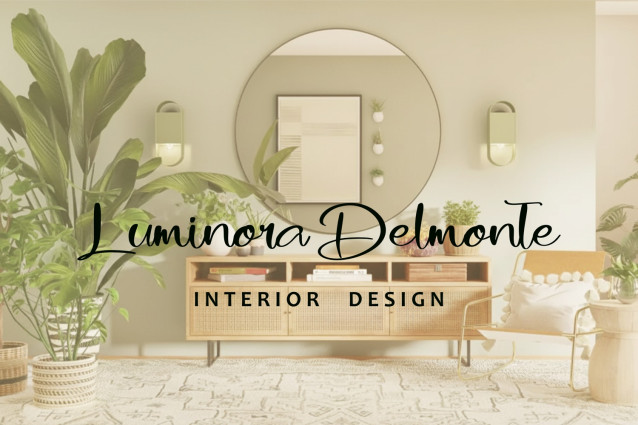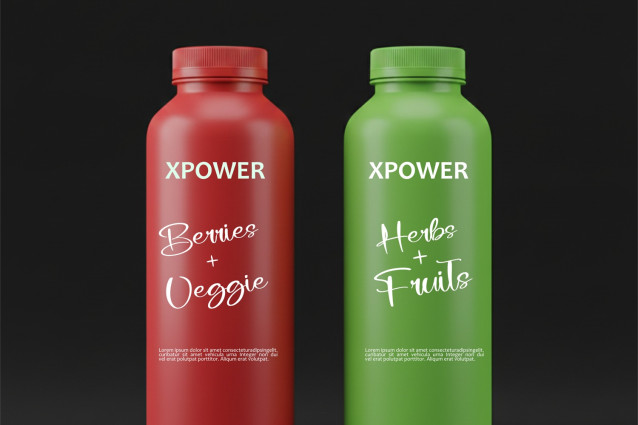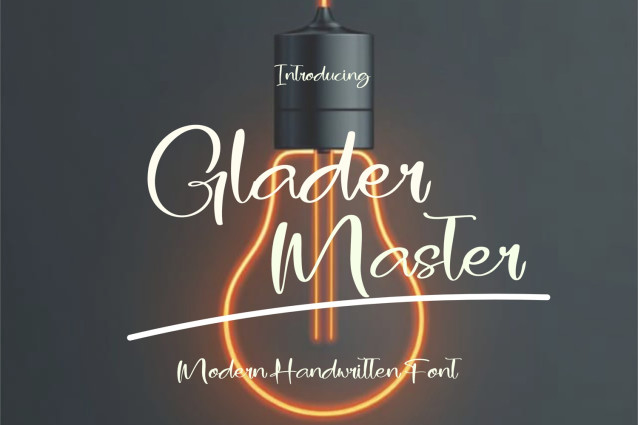
Glader Master Script Font
Glader Master Script Font is a modern handwritten font that blends smooth curves with expressive strokes, creating a look that’s both elegant and full of character. Designed for standout branding, Glader Master brings a touch of creativity and warmth to every project. Its flowing lines and natural handwriting style make it the perfect choice for logos, product packaging, quotes, invitations, posters, and social media designs.